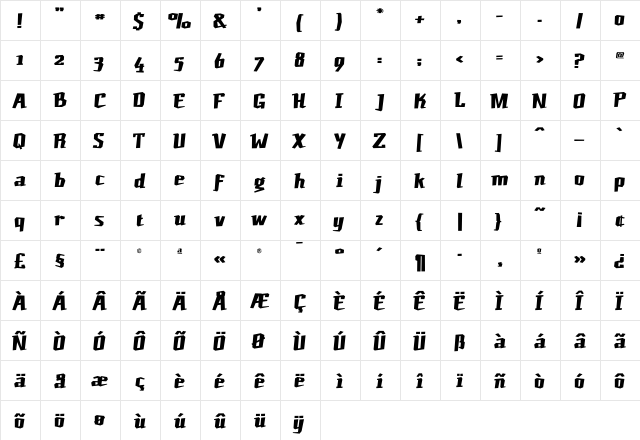
JacqueFat Regular
Design Context for JacqueFat Typeface
JacqueFat is a composed and adaptable typeface that performs quietly and consistently across a wide range of design contexts.